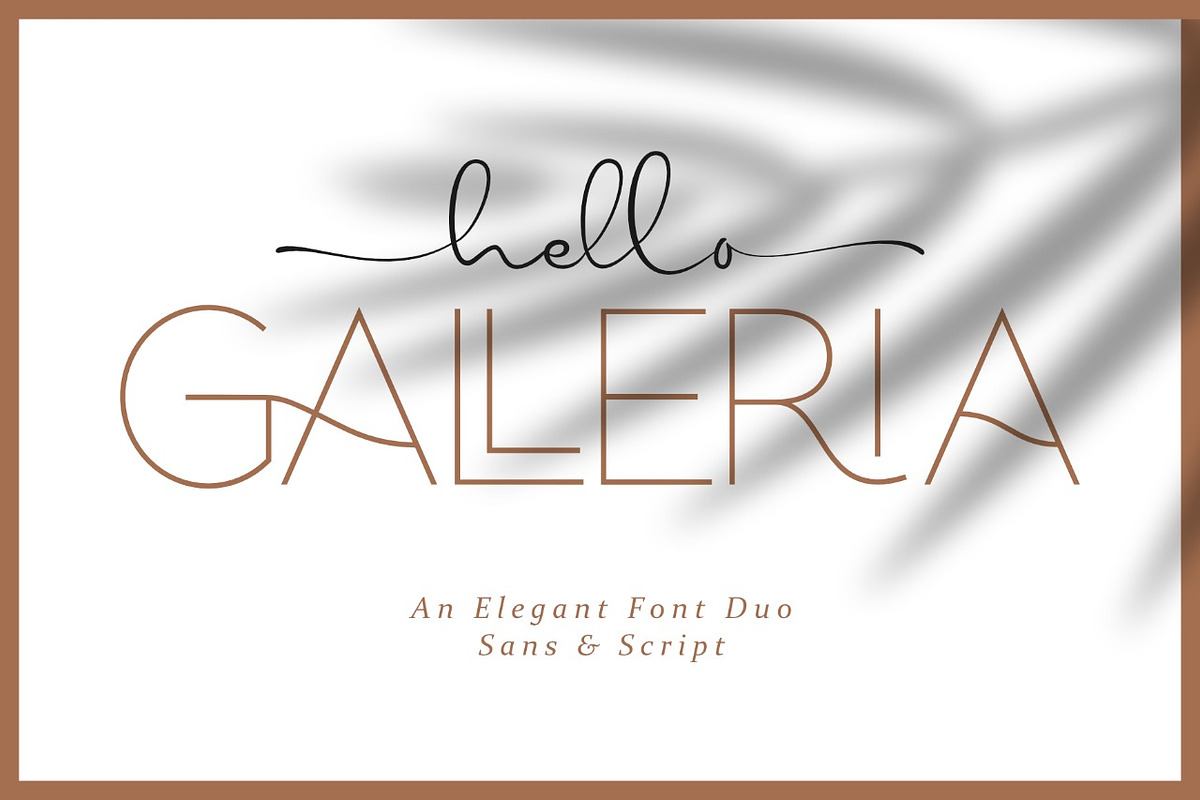
Bring the perfect blend of modern simplicity and elegance to your designs with HELLO GALLERIA SANS & SCRIPT FONT DUO Free Download. This versatile font duo pairs a sleek, contemporary sans serif with a flowing, stylish script, making it ideal for branding, logos, invitations, social media graphics, and more.
The Sans font offers clean, geometric letterforms that work perfectly for headings, body text, and minimalist designs, while the Script font adds a touch of personality and sophistication with its smooth, handwritten strokes. Together, they create a harmonious combination that can elevate any design.
This font duo includes uppercase and lowercase letters, numerals, punctuation, and multilingual support—ideal for testing a variety of layouts, from casual to professional.